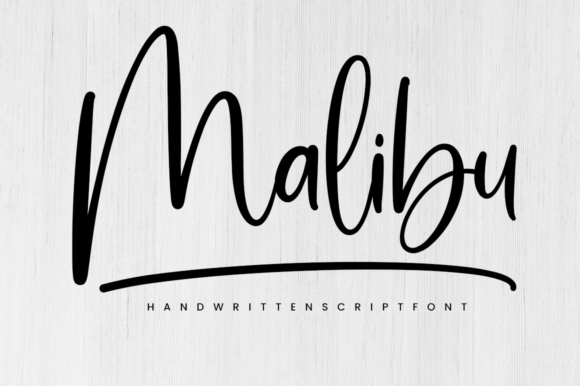
Looking for a stunning script font that captures the essence of elegance and sophistication? Look no further than Malibu Font by RasdiType. This stunning font is perfect for those in search of a Font For Signature In Pdf.
Malibu is a versatile font family that is ideal for adding a touch of sophistication to any project. With its delicate script design, Malibu exudes class and elegance, making it the perfect choice for wedding invitations, business cards, logos, and more.
One of the standout features of Malibu is its PUA encoding, which allows for easy access to all of the glyphs and swashes included in the font. This makes it simple to create unique and personalized designs that truly stand out.
Whether you're a graphic designer, small business owner, or simply someone looking for a font that captures the essence of luxury and refinement, Malibu is the perfect choice. Its timeless design and exquisite attention to detail make it a must-have for anyone in search of a Font For Signature In Pdf.